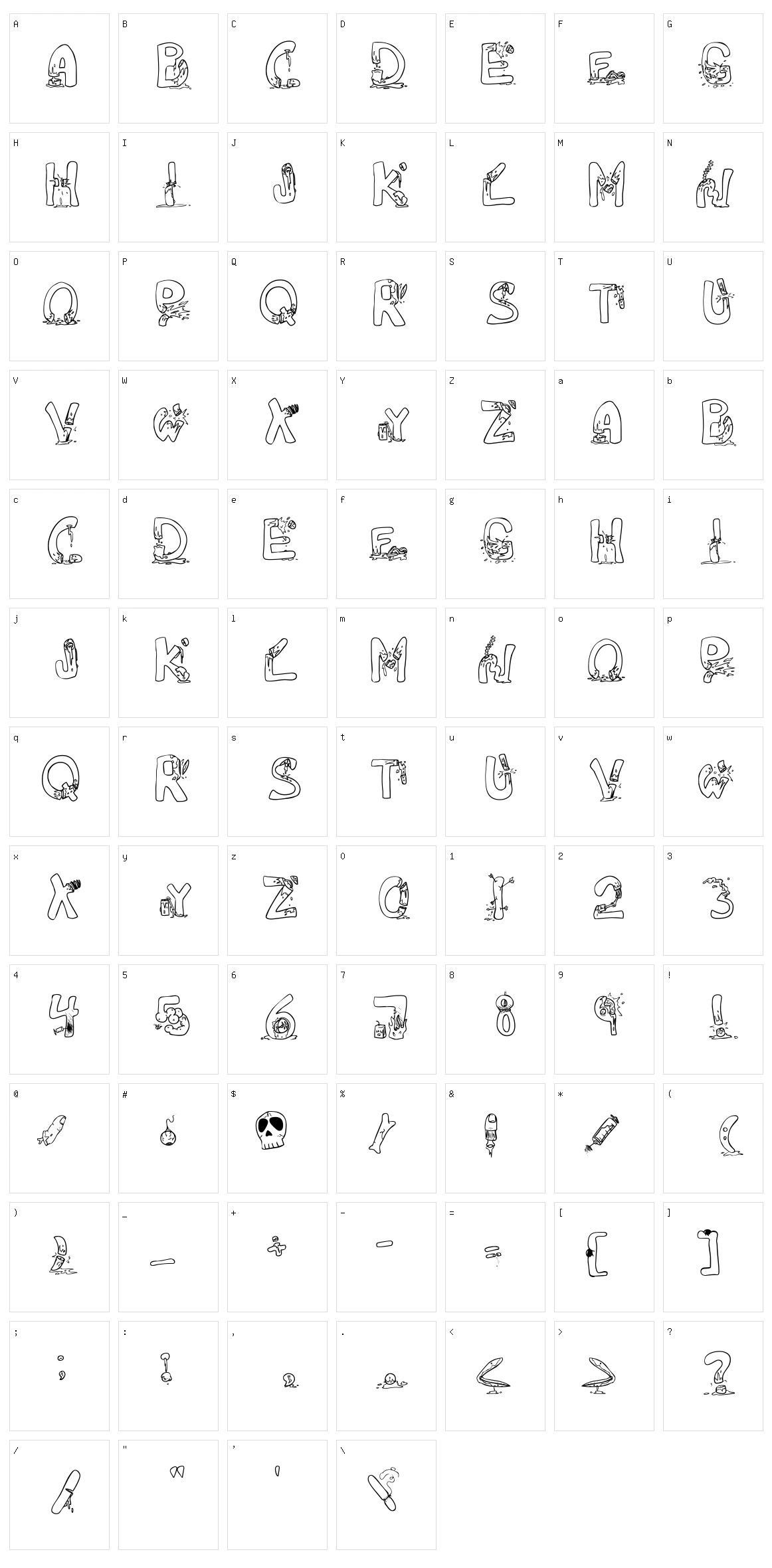
The free font Decapitated is carefully designed by Devin Montes, showcasing a thoughtful balance of creativity and usability and falls under the Cartoon font style. When you download the ZIP file, it contains only 44.3 KB of font files, making it lightweight and quick to download. Please review the license details below to understand permitted usage and distribution rights. If license information is not available, we recommend using this font for personal projects only or contacting the author directly for commercial usage permissions.